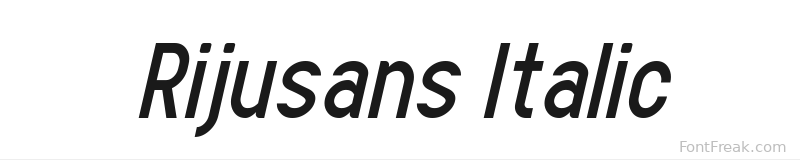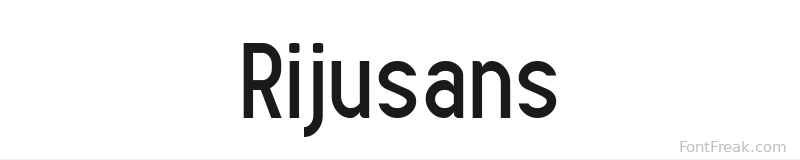
Rijusans
Rijusans Italic
About Rijusans
Rijusans, crafted by GGBot, is a striking sans-serif font that combines modern aesthetics with versatility. This font features clean lines and a balanced stroke weight that offers a contemporary feel while maintaining excellent readability. The subtle contrast between thick and thin strokes adds a dynamic quality, making Rijusans visually appealing. Its well-proportioned spacing ensures clarity, making it ideal for both headlines and body text.
This font is particularly well-suited for a variety of applications. Graphic designers can leverage Rijusans for creating engaging wedding invitations that require a modern yet elegant touch. Small business owners may find it perfect for restaurant menus, where legibility is paramount, yet a stylish presentation is desired. Content creators can use Rijusans in social media graphics, ensuring their posts stand out in a crowded digital landscape. Additionally, its sleek design makes it an excellent choice for movie posters, where bold typography can capture attention effectively.
What sets Rijusans apart is its ability to blend functionality with style, offering users a font that is not only aesthetically pleasing but also practical for various design needs. Whether you're working on print or digital media, Rijusans provides a clean and modern option that elevates your work. Don't miss the chance to enhance your designs with Rijusans font free download, a choice that promises to make a lasting impression.